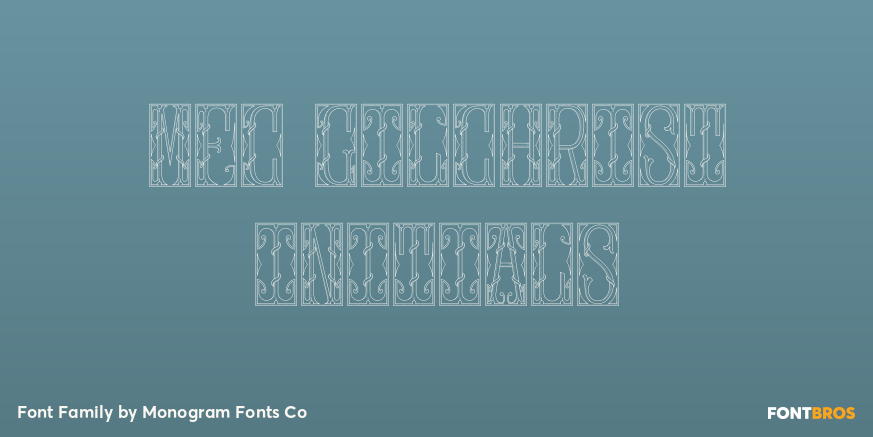
About MFC Gilchrist Initials
Our MFC Gilchrist Monogram served as the springboard for these highly ornamented initial fonts in MFC Gilchrist Initials. Taking the already detailed letterforms within our monogram version, these initials have been cameo-boxed in and lavished with even…